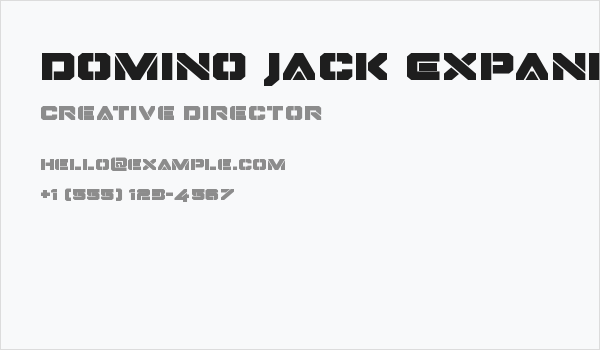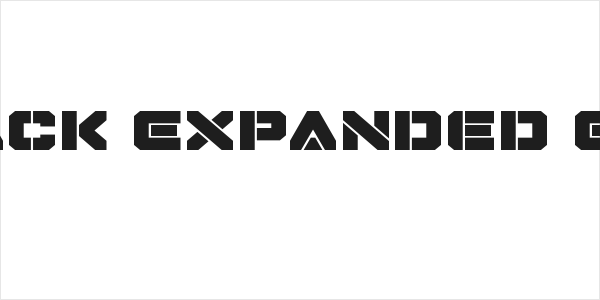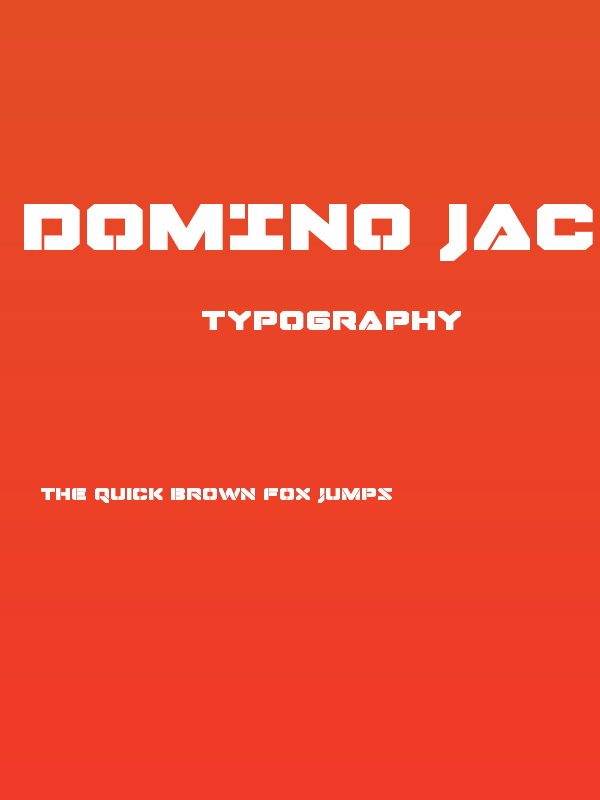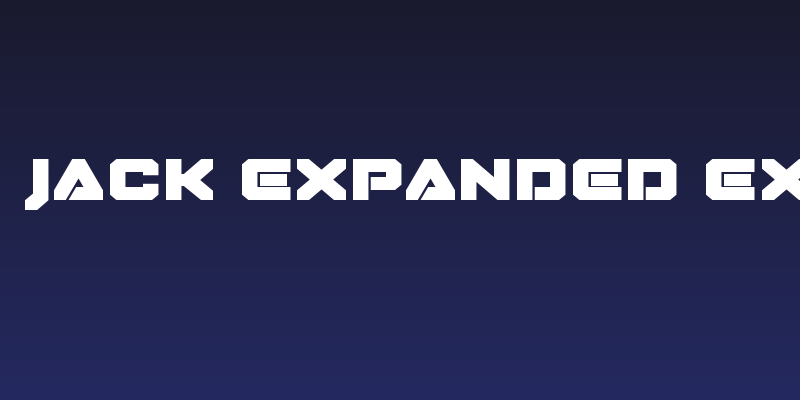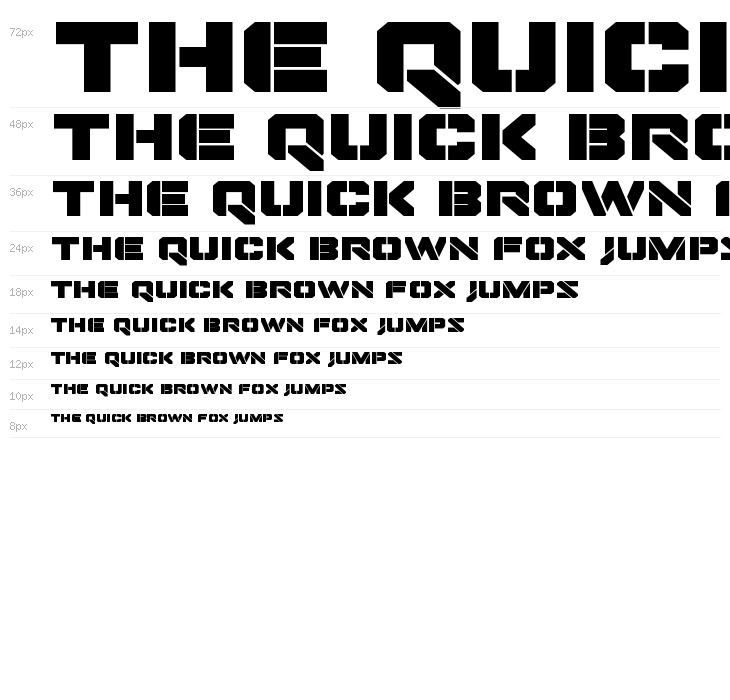
Domino Jack Expanded Font
Domino Jack Expanded Description
This font features a bold, geometric style with a strong presence. Each character is constructed with angular, block-like shapes, giving it a futuristic and industrial feel. The uppercase letters are particularly striking, with sharp edges and a consistent height, while the lowercase letters maintain the same boldness and geometric integrity. The numbers and special characters follow the same design principles, ensuring uniformity across all glyphs. The font's expanded width enhances its readability and impact, making it suitable for attention-grabbing headlines and titles.
| Proposed Projects | Ideal for branding, posters, video game graphics, and any project requiring a strong, modern aesthetic. |